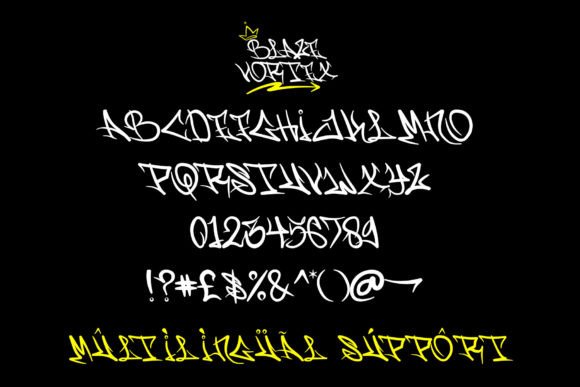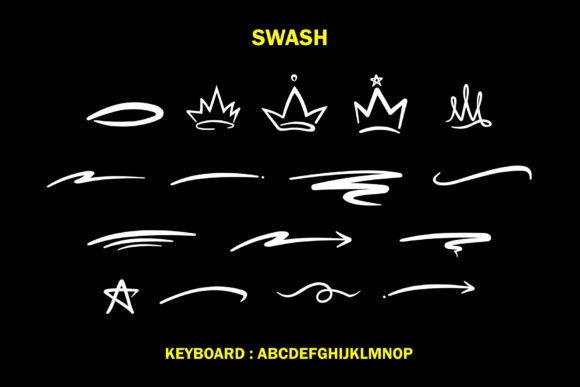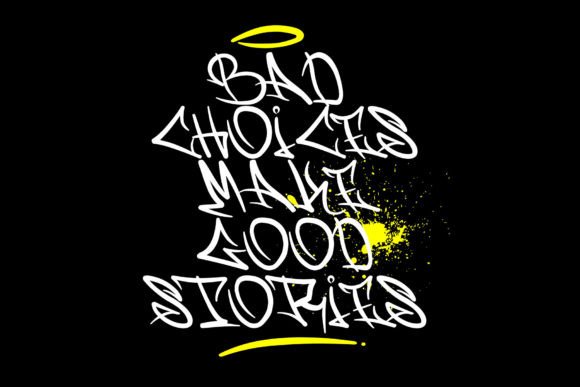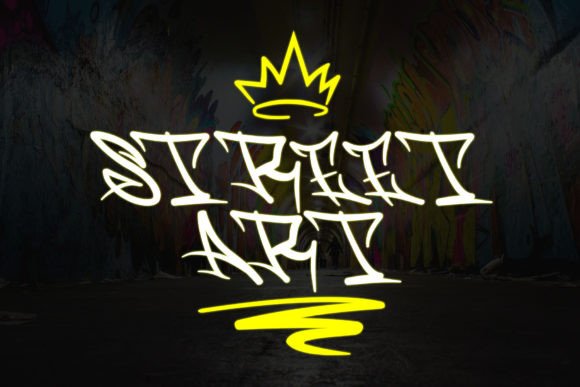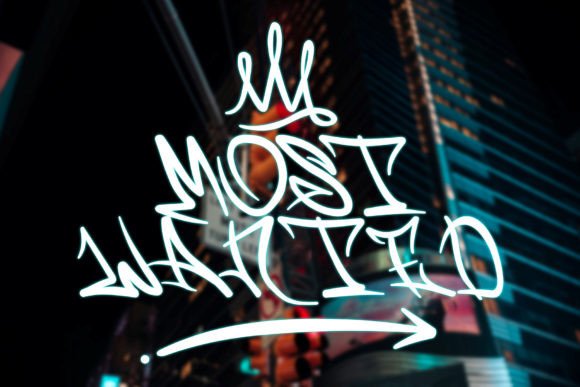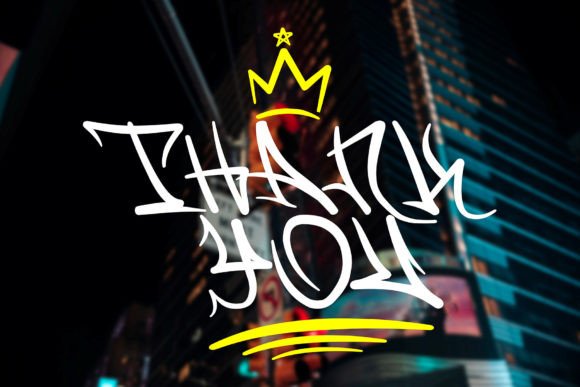
Unleash Your Creativity with Blaze Vortex Font: The Ultimate Urban Typography
Are you tired of using the same old fonts for your designs? Do you want to add a raw and urban touch to your projects? Look no further than the Blaze Vortex Font, an edgy graffiti monoline font that’s sure to take your designs to the next level. In this article, we’ll dive into the features and benefits of Blaze Vortex, and explore how it can elevate your designs, whether you’re a streetwear brand, music poster designer, or urban-themed project creator.
What is Blaze Vortex Font?
Blaze Vortex is a unique and captivating font that combines the edginess of graffiti with the sleekness of monoline typography. Its bold and exciting design makes it perfect for designers who want to add a touch of urban grit to their projects. With its swash decorations and bold lines, Blaze Vortex is sure to make your designs stand out from the crowd.
Key Features of Blaze Vortex Font
- Edgy Graffiti Monoline Design: Blaze Vortex boasts a distinctive graffiti monoline design that adds a raw and urban touch to your designs.
- Swash Decorations: The font features captivating swash decorations that take your designs to the next level of awesomeness.
- Bold and Exciting: Blaze Vortex exudes boldness and excitement, making it perfect for designs that require a statement piece.
- Versatile: The font is suitable for a wide range of projects, including streetwear brands, music posters, urban-themed projects, and more.
Perfect for Streetwear Brands, Music Posters, and Urban-Themed Projects
Blaze Vortex is specifically designed for designers who want to create bold and eye-catching designs for streetwear brands, music posters, and urban-themed projects. The font’s edgy and graffiti-inspired design makes it a perfect fit for these types of projects, adding a touch of urban grit and coolness that’s sure to resonate with your audience.
Benefits of Using Blaze Vortex Font
- Adds a Raw and Urban Touch: Blaze Vortex adds a unique and edgy touch to your designs, setting them apart from the crowd.
- Increases Visual Impact: The font’s bold and exciting design makes it perfect for creating visually striking designs that grab attention.
- Enhances Creativity: With Blaze Vortex, you can unleash your creativity and experiment with new and innovative design ideas.
- Saves Time: The font’s versatility and ease of use make it a great time-saving solution for designers who need to create high-quality designs quickly.
How to Use Blaze Vortex Font
Tips and Tricks for Getting the Most Out of Blaze Vortex
- Experiment with Different Colors: Blaze Vortex looks great in bold and bright colors, so don’t be afraid to experiment and find the perfect color scheme for your design.
- Play with Swash Decorations: The font’s swash decorations are a key feature, so make sure to experiment with different combinations to find the one that works best for your design.
- Use it in Combination with Other Fonts: Blaze Vortex can be used in combination with other fonts to create a unique and visually striking design.
In conclusion, Blaze Vortex Font is a game-changing typography solution for designers who want to add a raw and urban touch to their designs. With its edgy graffiti monoline design, captivating swash decorations, and bold and exciting style, Blaze Vortex is perfect for streetwear brands, music posters, and urban-themed projects. Whether you’re a seasoned designer or just starting out, Blaze Vortex is a must-have font that will take your designs to the next level of awesomeness.